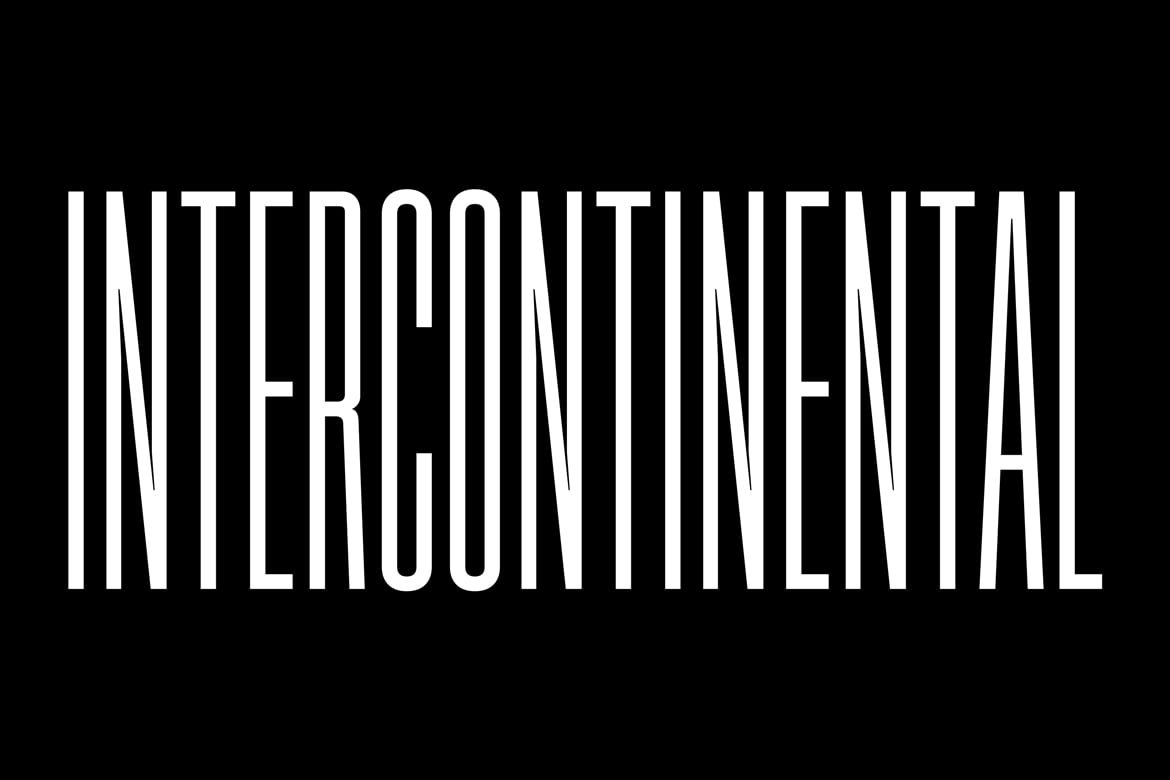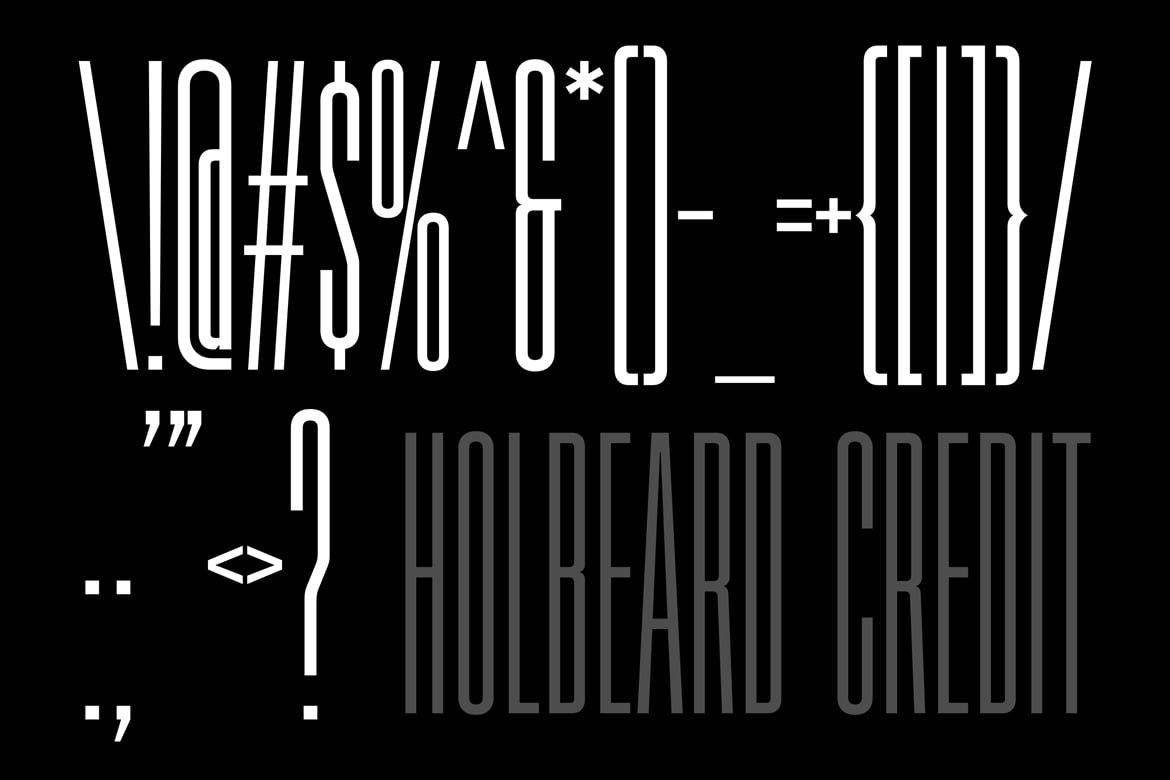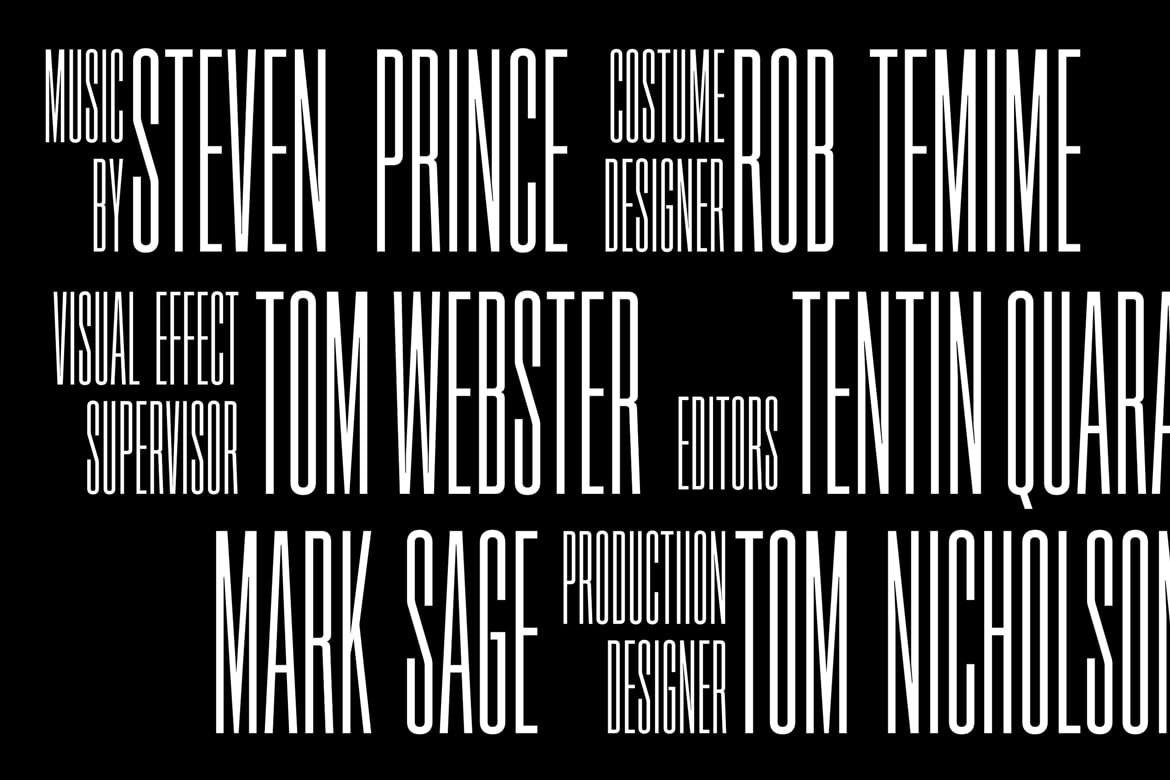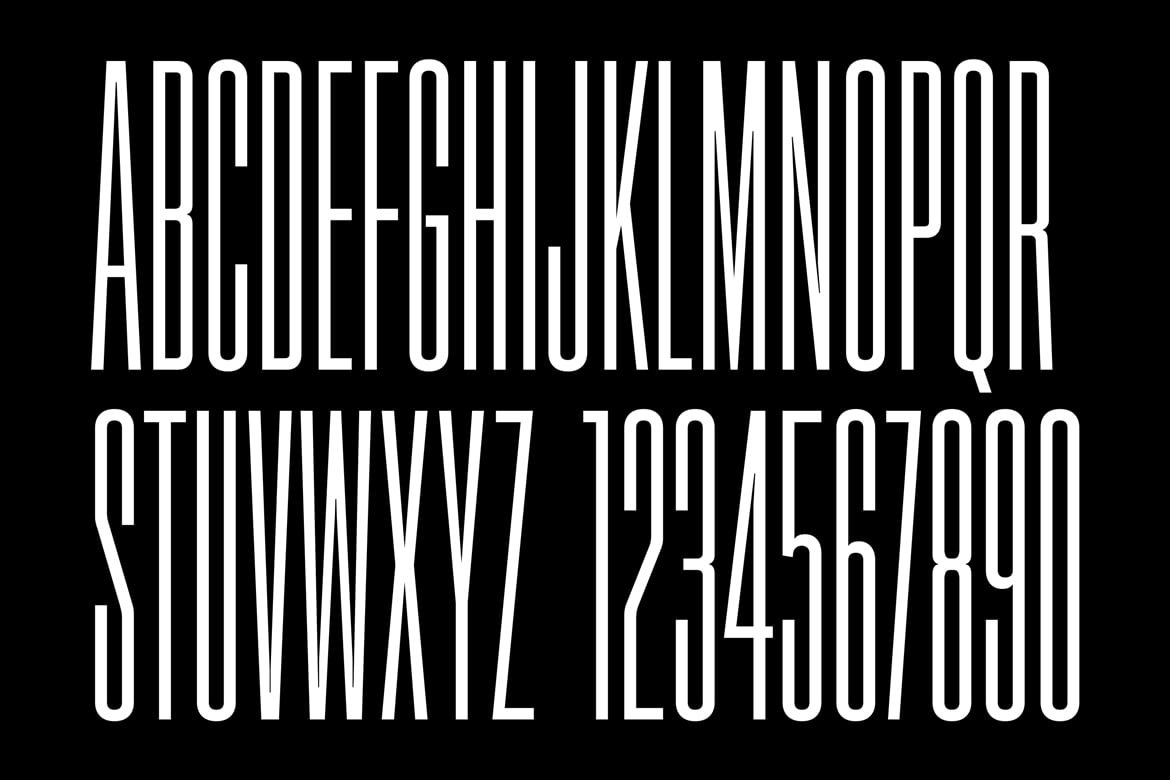
Holbeard Credit Font
Holbeard Credit is super condensed typeface with more traditional letterforms; making it perfect for creating (or recreating) the compact look of movie poster production credits.